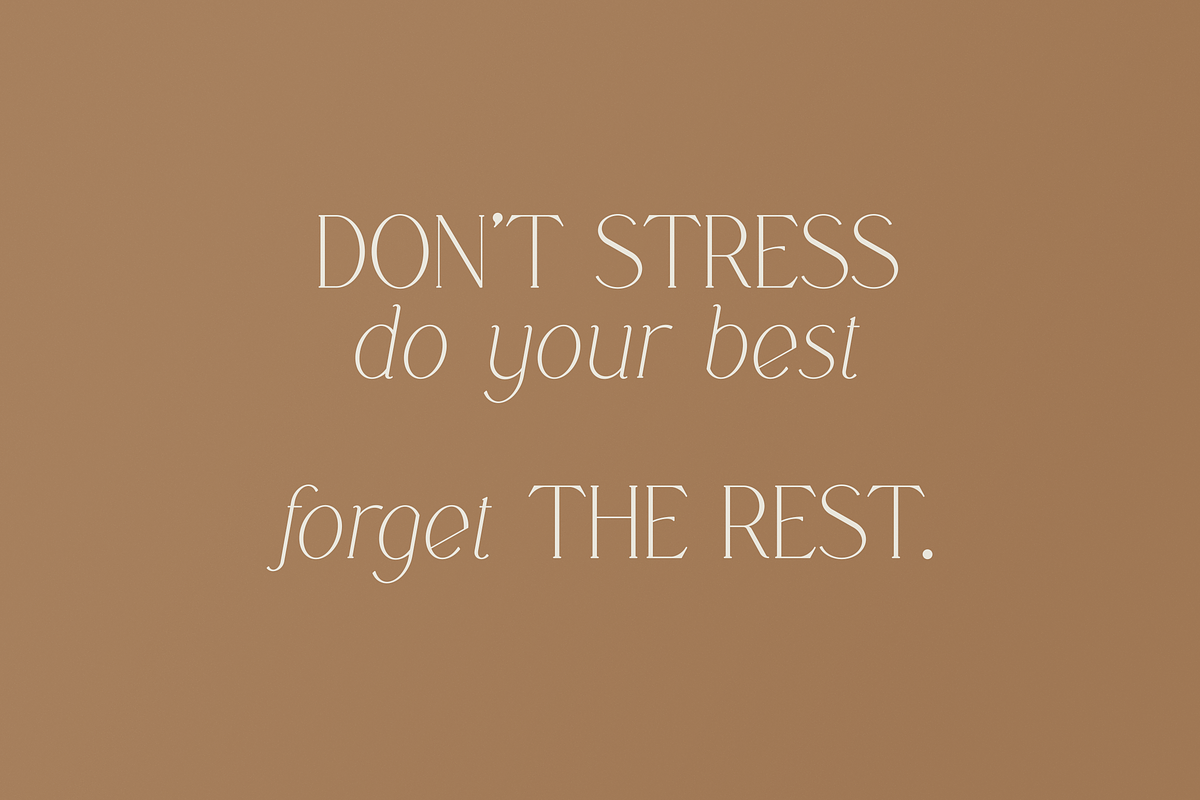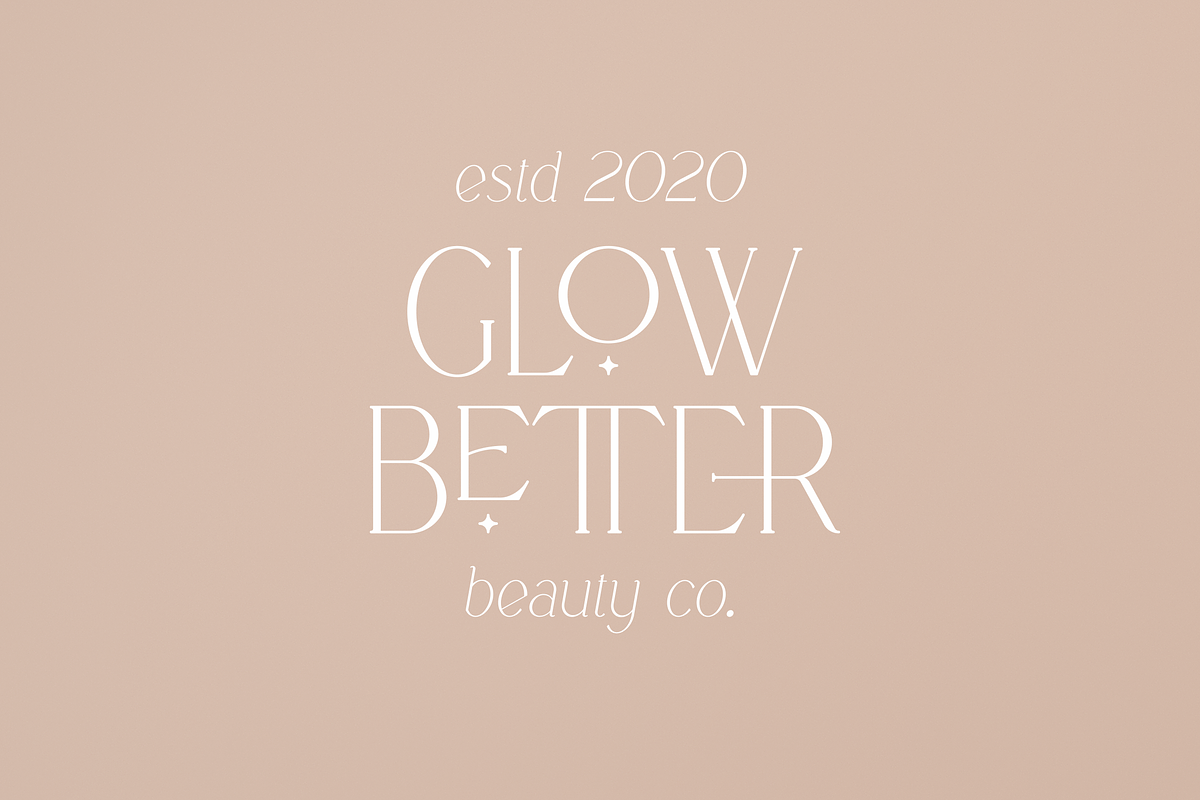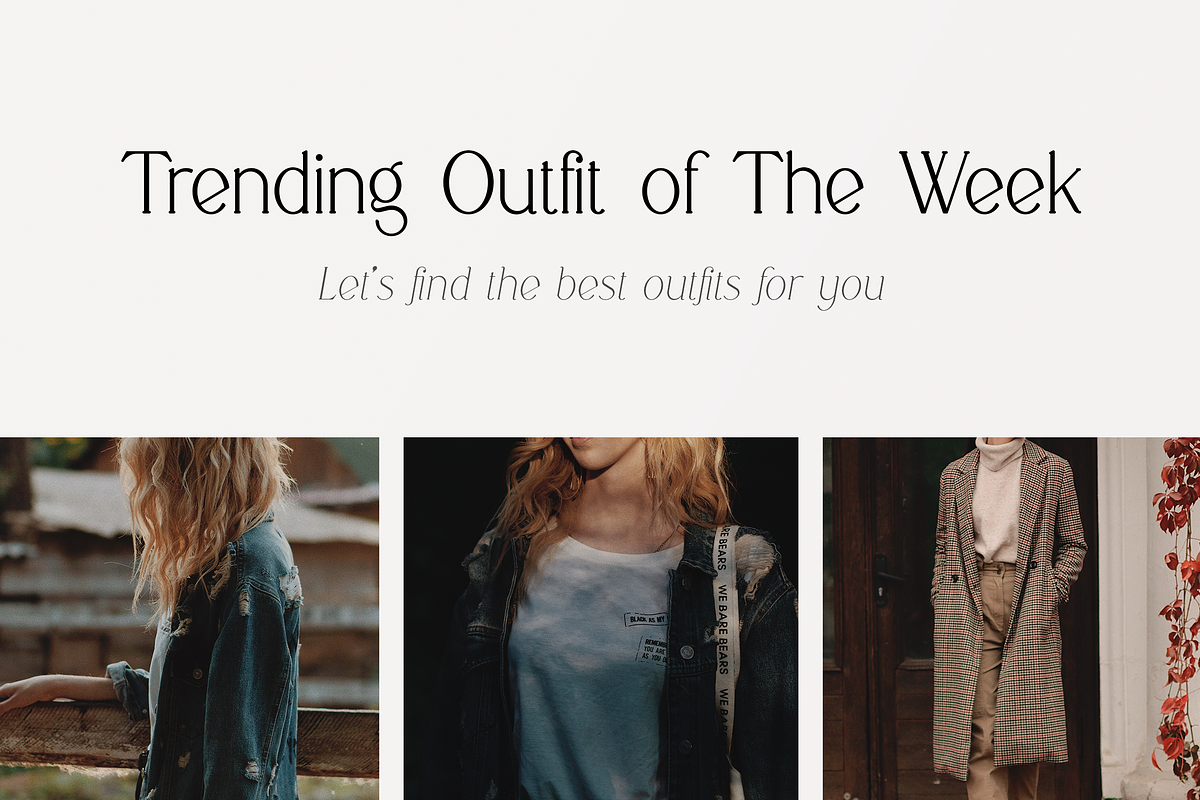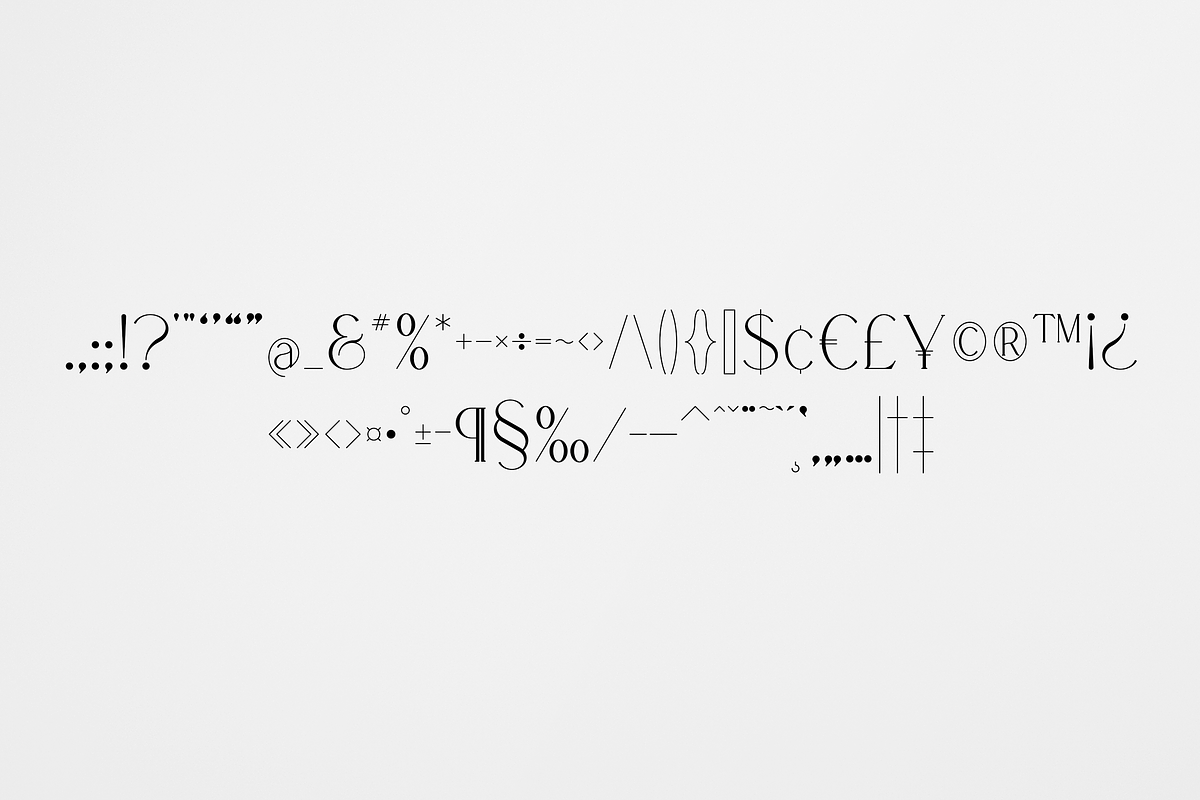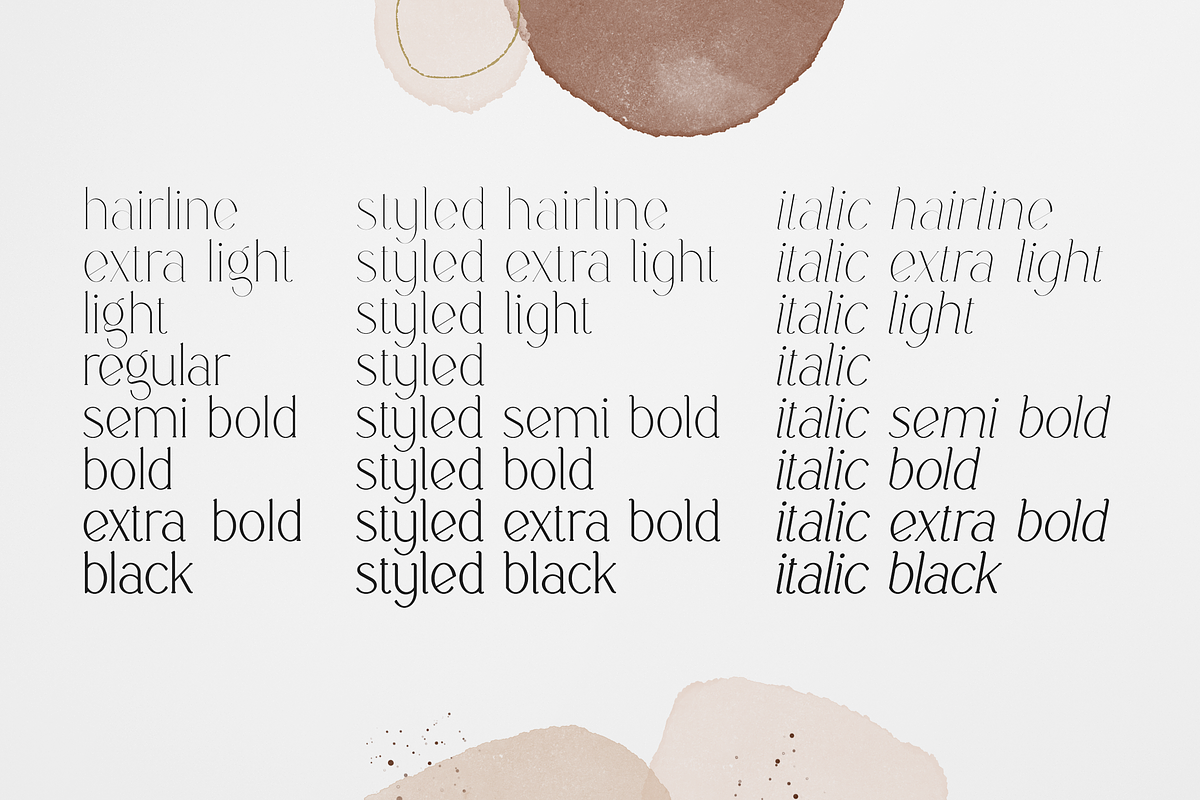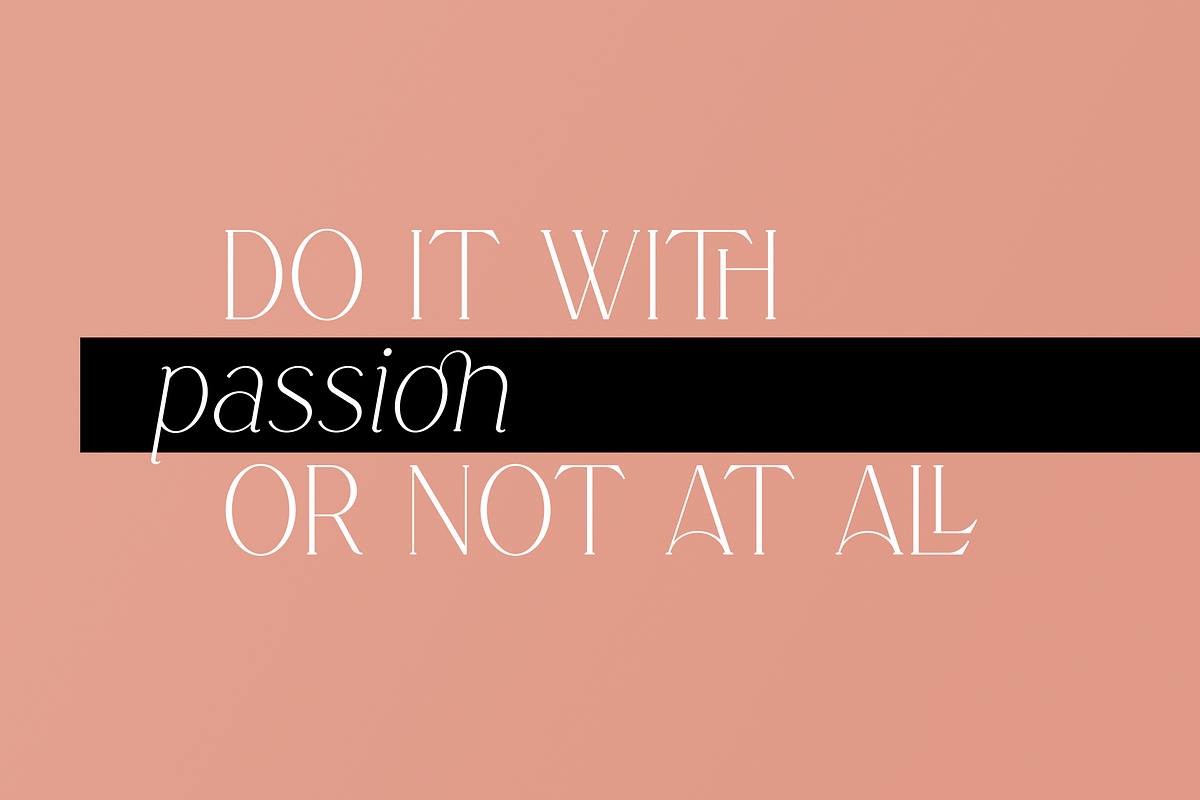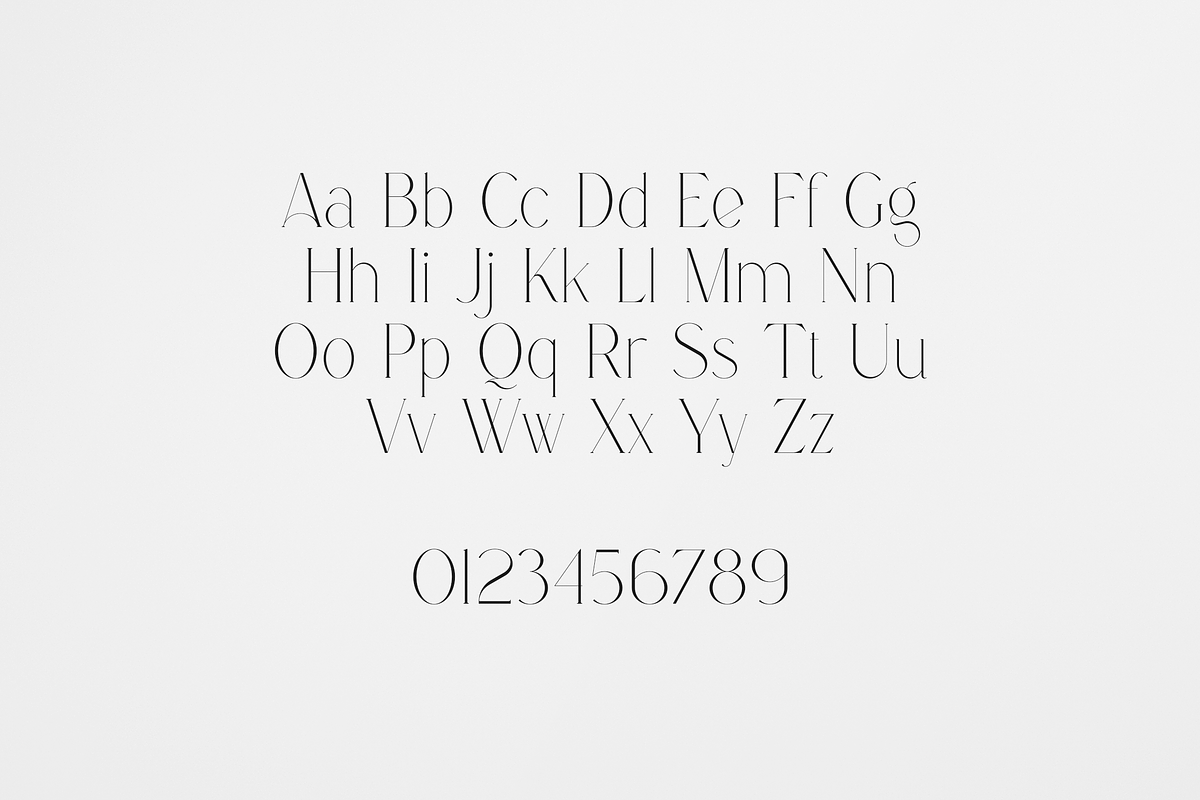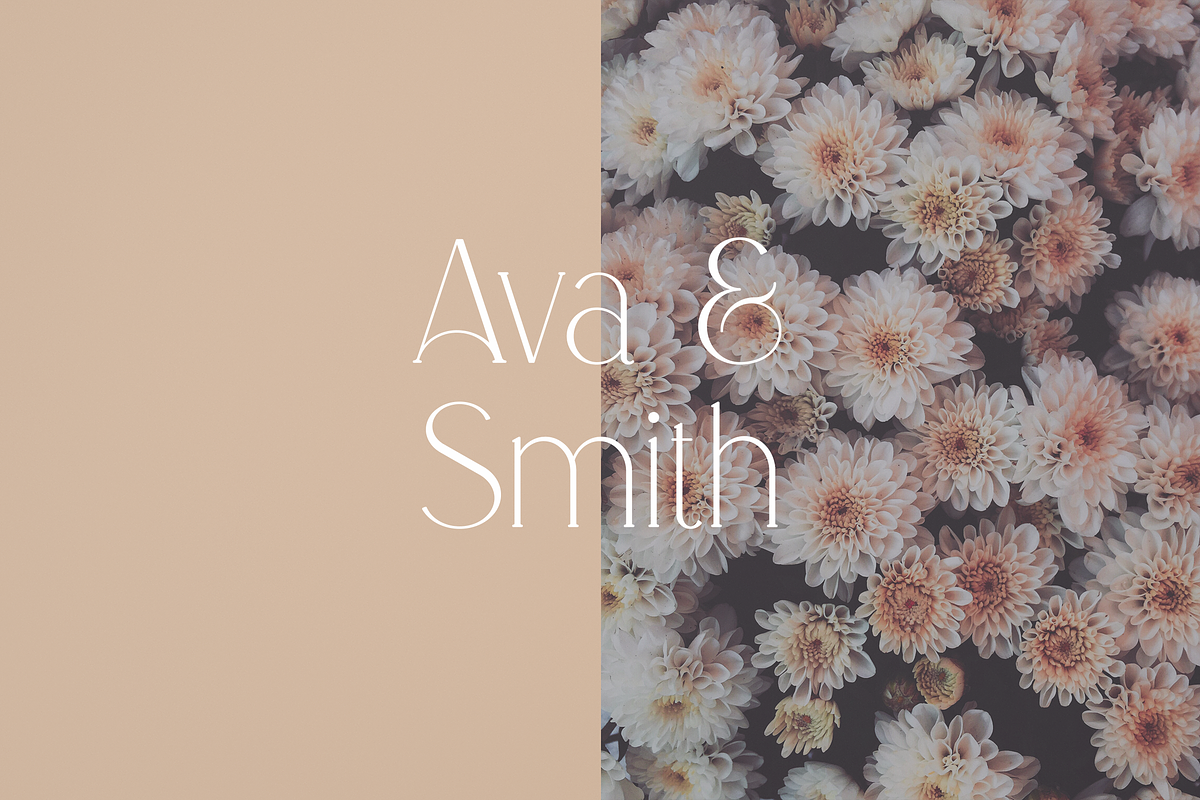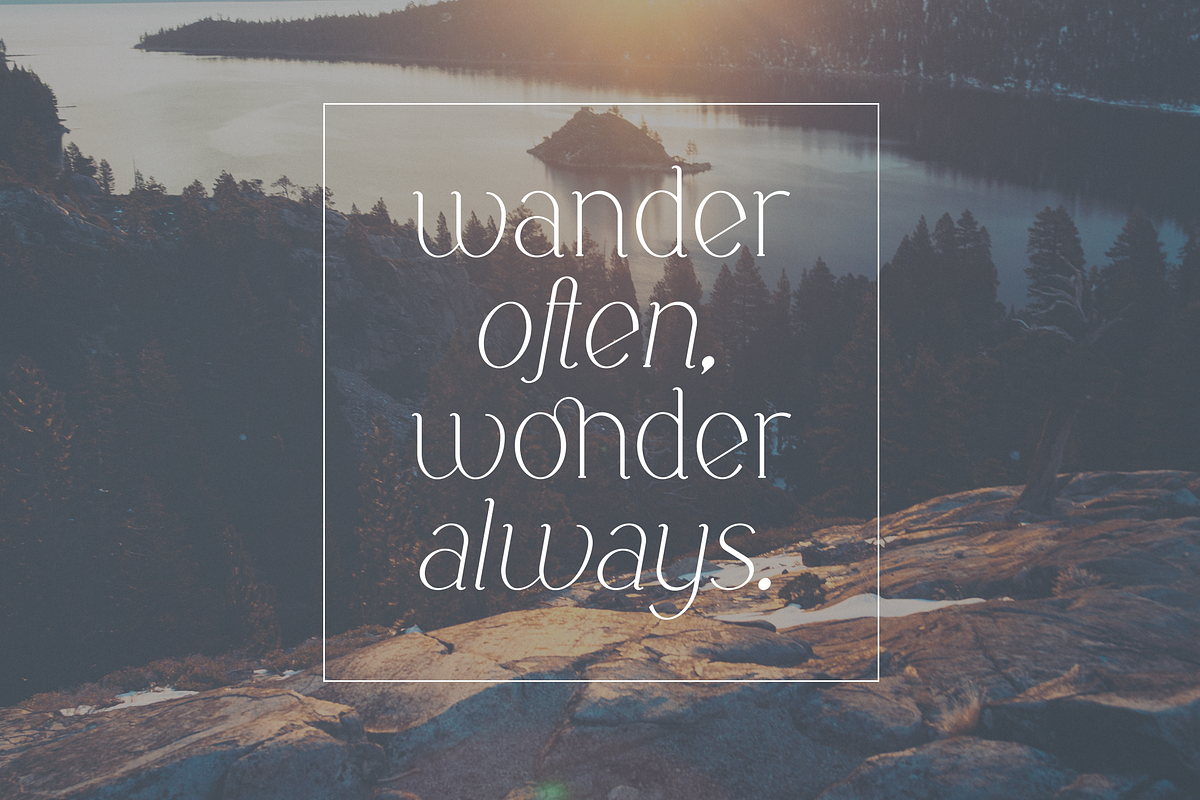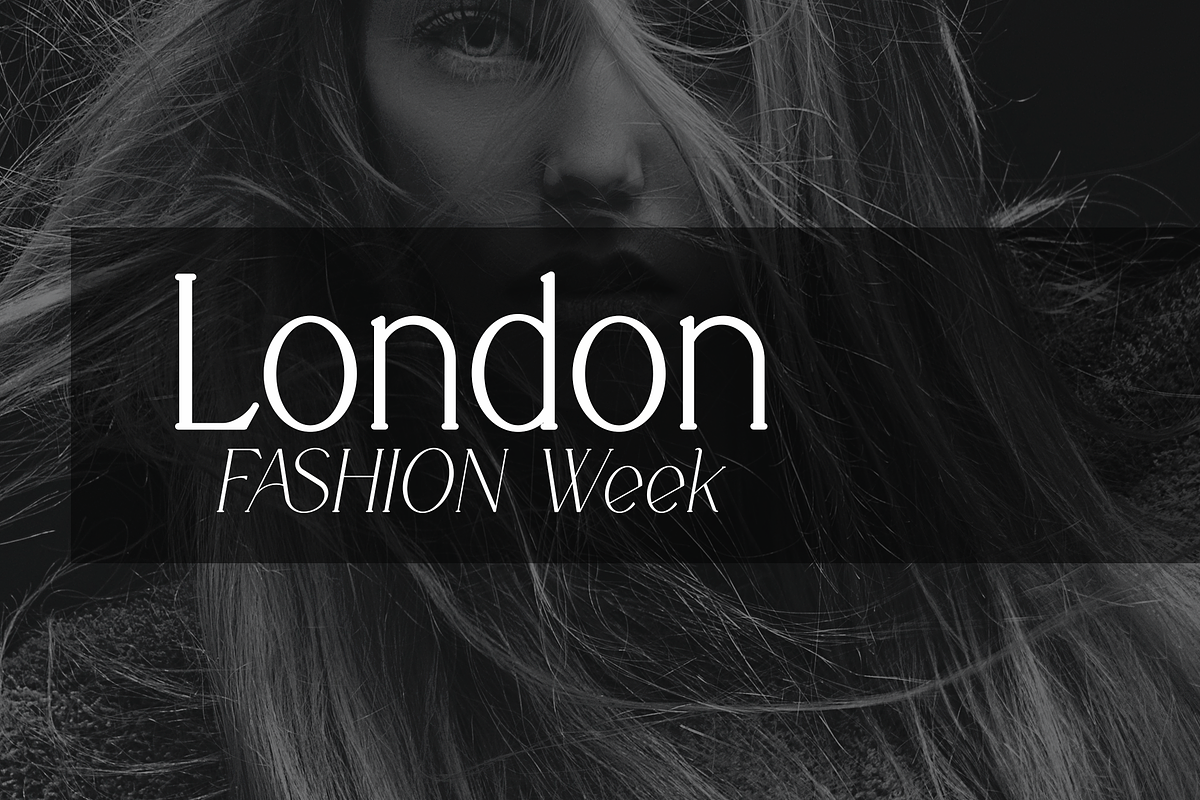
Boketto - Elegant typeface. 24 fonts
Introducing Boketto - Elegant typeface. 24 font styles included
Boketto is elegant and versatile typeface loaded with 24 font styles (regular, styled and italics) 87 languages support, alternate and ligature glyphs to make you typography truly unique!
Language Support : Afrikaans, Albanian, Asu, Basque, Bemba, Bena, Breton, Chiga, Colognian, Cornish, Czech, Danish, Dutch, Embu, English, Estonian, Faroese, Filipino, Finnish, French, Friulian, Galician, Ganda, German, Gusi,i Hungarian, Indonesian, Irish, Italian, Jola-Fonyi, Kabuverdianu, Kalenjin, Kamba, Kikuyu, Kinyarwanda, Latvian, Lithuanian, Lower Sorbian, Luo, Luxembourgish, Luyia, Machame, Makhuwa-Meetto, Makonde, Malagasy, Maltese, Manx, Meru, Morisyen, North Ndebele, Norwegian, Bokmål, Norwegian, Nynorsk, Nyankole, Oromo, Polish, Portuguese, Quechua, Romanian, Romansh, Rombo, Rundi, Rwa, Samburu, Sango, Sangu, Scottish, Gaelic, Sena, Shambala, Shona, Slovak, Soga, Somali, Spanish, Swahili, Swedish, Swiss, German, Taita, Teso, Turkish, Upper, Sorbian, Uzbek (Latin), Volapük, Vunjo, Walser, Welsh, Western Frisian, Zulu
- Uppercase, lowercase, numeral, punctuation & Symbol
- ligature glyphs
- alternates
- Regular ( hairline, extra light, light, regular, semi bold, bold, extra bold, black )
- Styled ( hairline, extra light, light, regular, semi bold, bold, extra bold, black )
- Italic ( hairline, extra light, light, regular, semi bold, bold, extra bold, black )
- Multilingual support - 87 languages